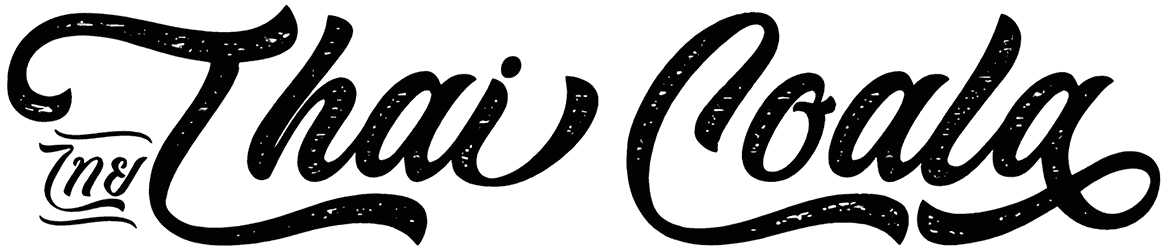
Thai Coala Font
Thai Coala is a stylish script font that brings excitement to your audience. This well-designed font makes your content shine in any eye, no matter the subject.
Moreover, you may use Thai Coala in various situations, such as posters, flyers, advertisements, and prints on T-shirts. This handwritten font’s letters have a casual form, sending a pleasant vibe. Give this piece of work a try, and feel free to explore our stock for more fantastic fonts.